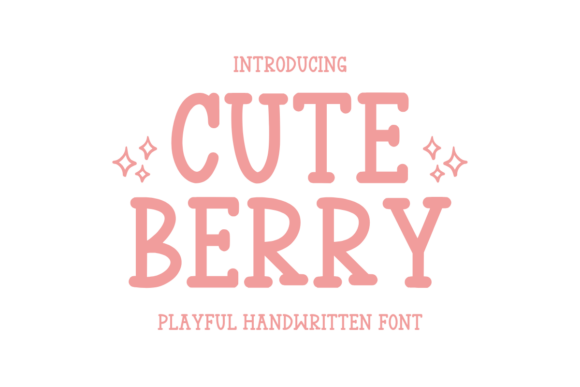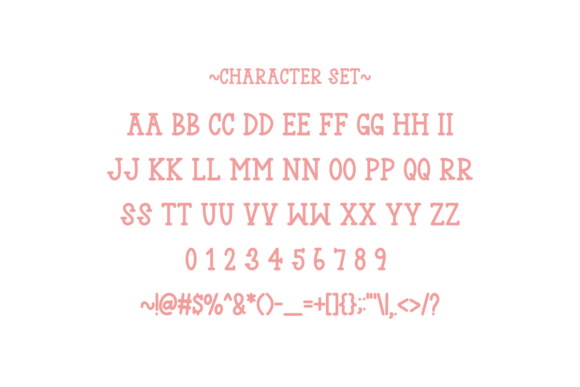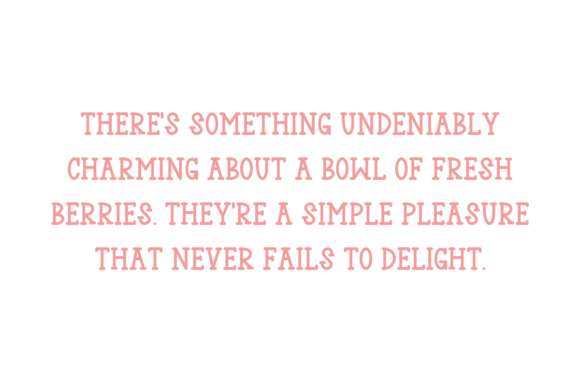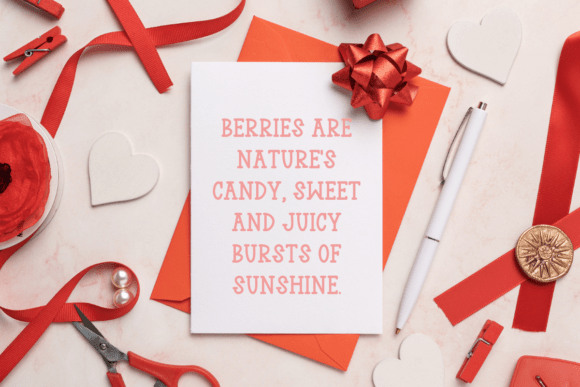
Cute Berry Font: A Playful Handwritten Font for Cricut DIY
About the Cute Berry Font
Welcome to the world of Cute Berry Font, a typeface that will inspire your next great project. Cute Berry is a playful font that’s perfect for crafts, planners, KDP, stickers, greeting cards, and more. With its cute and friendly style, it works great for Cricut, sublimation, and creative DIY projects. Ideal for crafters, designers, and makers!
Cute Berry’s playful energy makes it ideal for branding projects targeting a young, female demographic, particularly in children’s products or businesses focused on crafts and handmade goods. It excels in short headlines, logos, and packaging design where its friendly character shines. However, its low x-height and decorative elements make it unsuitable for body text or UI applications requiring high readability.
Pairing Cute Berry with a clean sans-serif like Open Sans for body copy creates a balanced contrast, allowing the playful display font to stand out. For a more whimsical feel, consider pairing it with a delicate script font such as Great Vibes, but use sparingly to avoid overwhelming the design. Avoid pairing it with overly heavy or geometric fonts, which could clash with its organic forms.
Its overall personality is best described as friendly and approachable, making it a great choice for projects needing a touch of sweetness and charm.